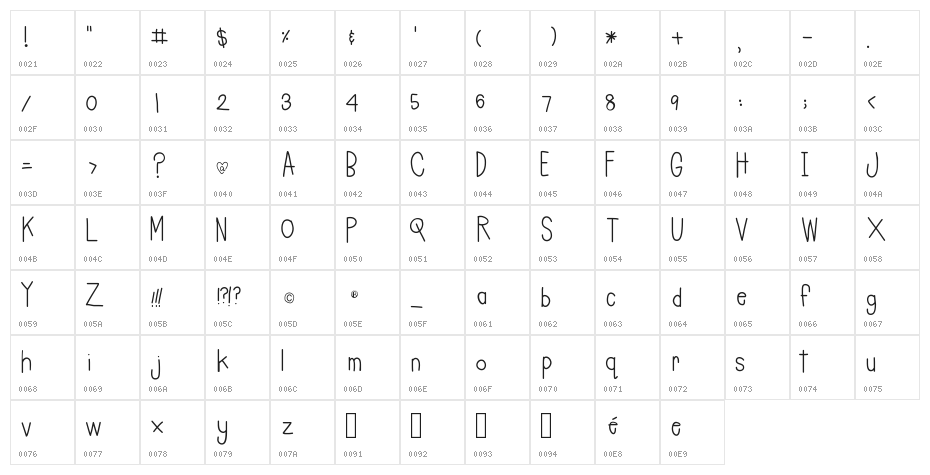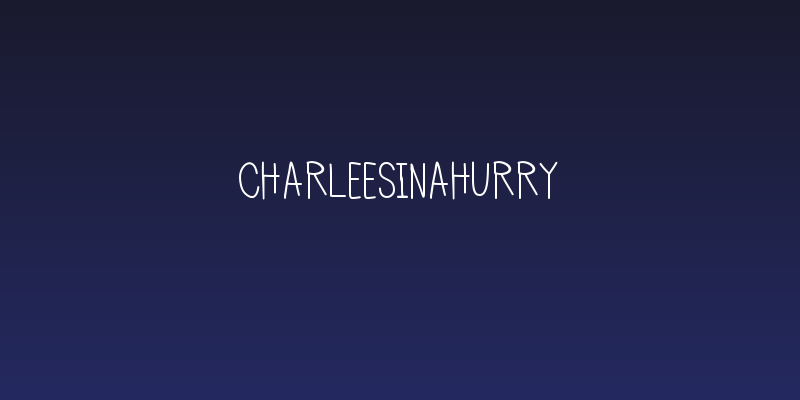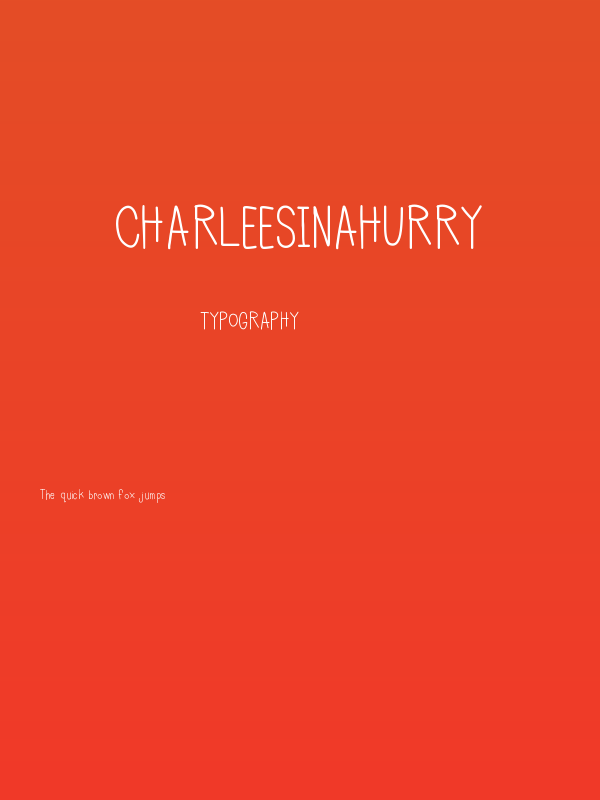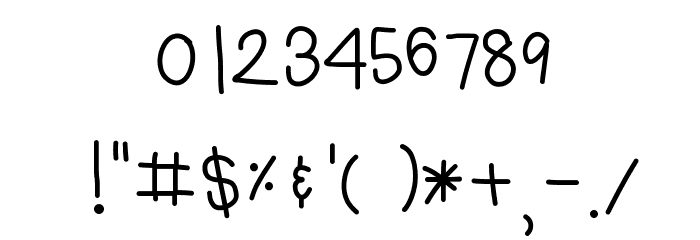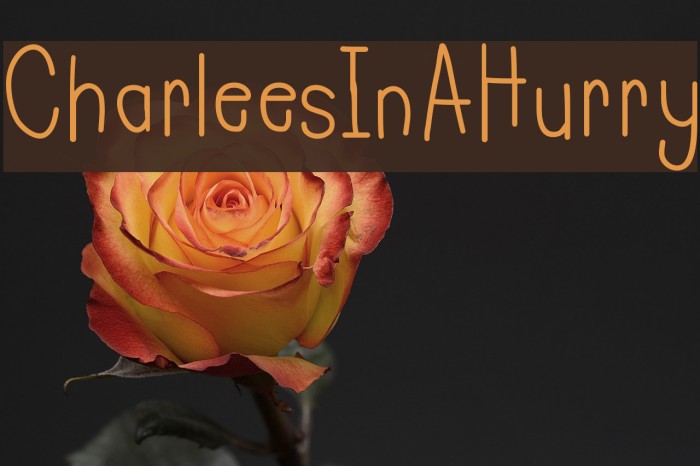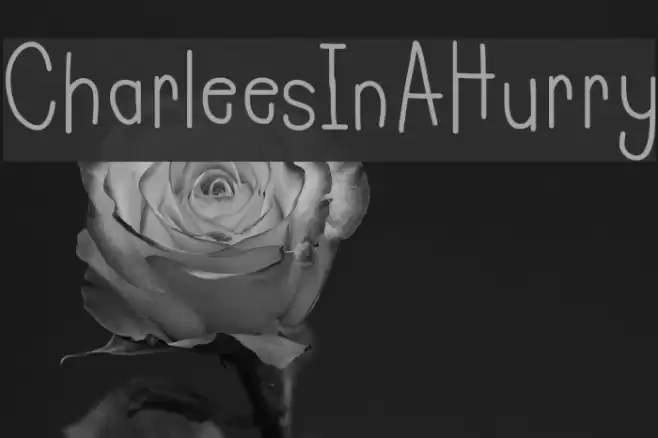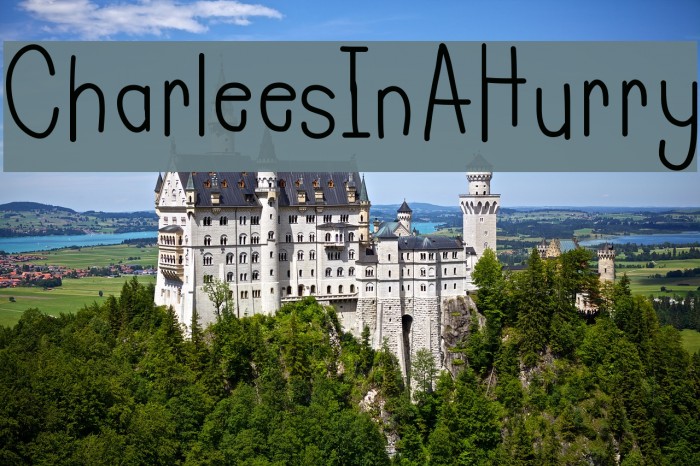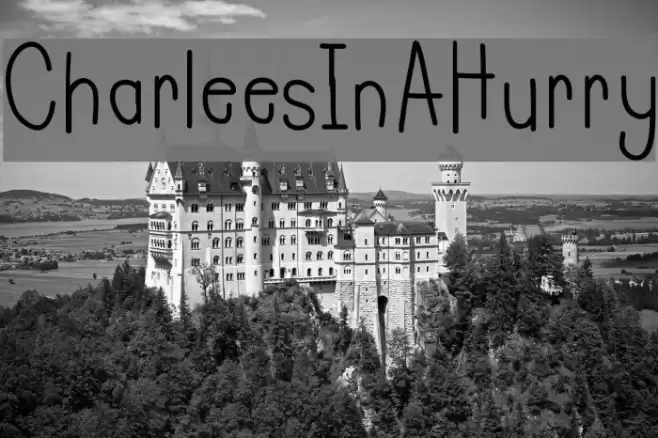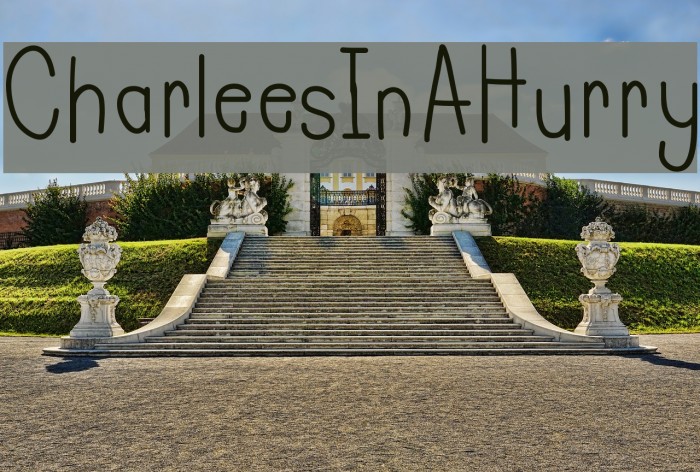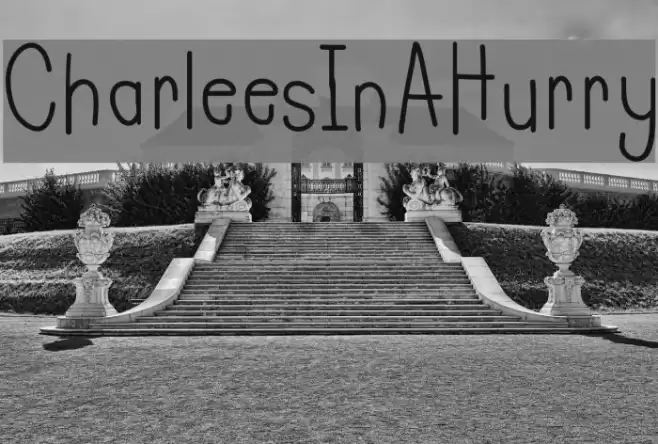
CharleesInAHurry Font
CharleesInAHurry Description
This playful and quirky font features a handwritten style with a casual, informal appearance. The letters are slightly uneven, giving it a charming, whimsical feel. The strokes are consistent in width, providing a uniform look across all characters. The font includes both uppercase and lowercase letters, numbers, and a variety of special characters, making it versatile for different uses. Its unique personality makes it ideal for creative projects that require a touch of fun and individuality.
| Overall Style | Whimsical |
| Use Case | Headlines, Logos, Informal text |
| Proposed Projects | Ideal for children's books, greeting cards, playful branding, and casual invitations. |